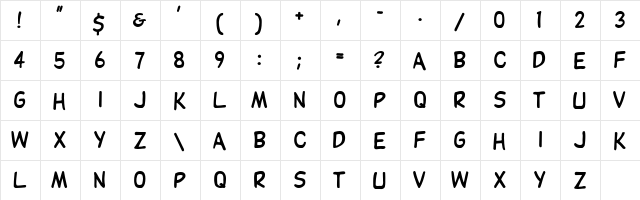
Dupuy Heavy Medium
Design Context for Dupuy Heavy Typeface
Dupuy Heavy takes a measured approach to typography — its balanced proportions and neutral character make it a reliable workhorse for both digital and print work.